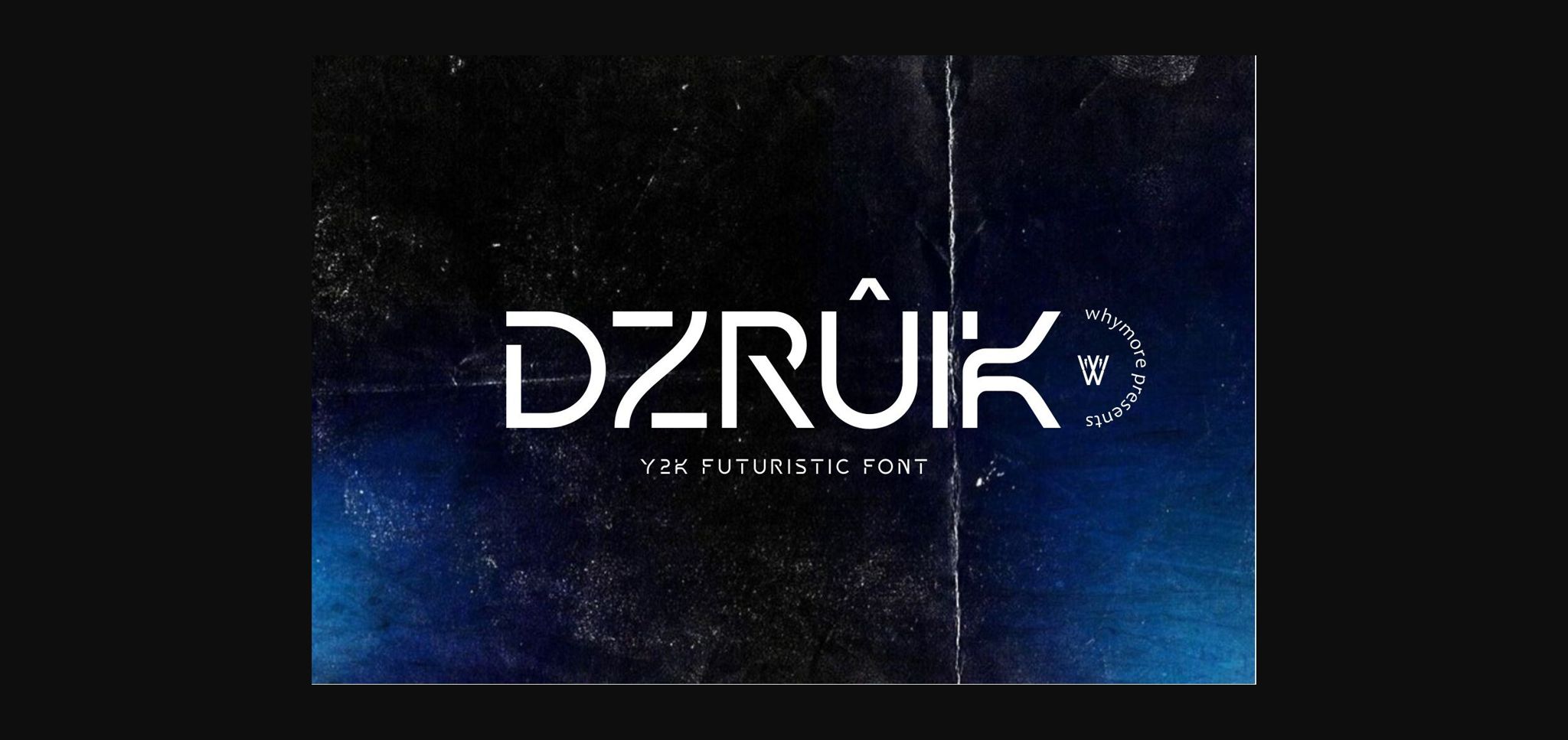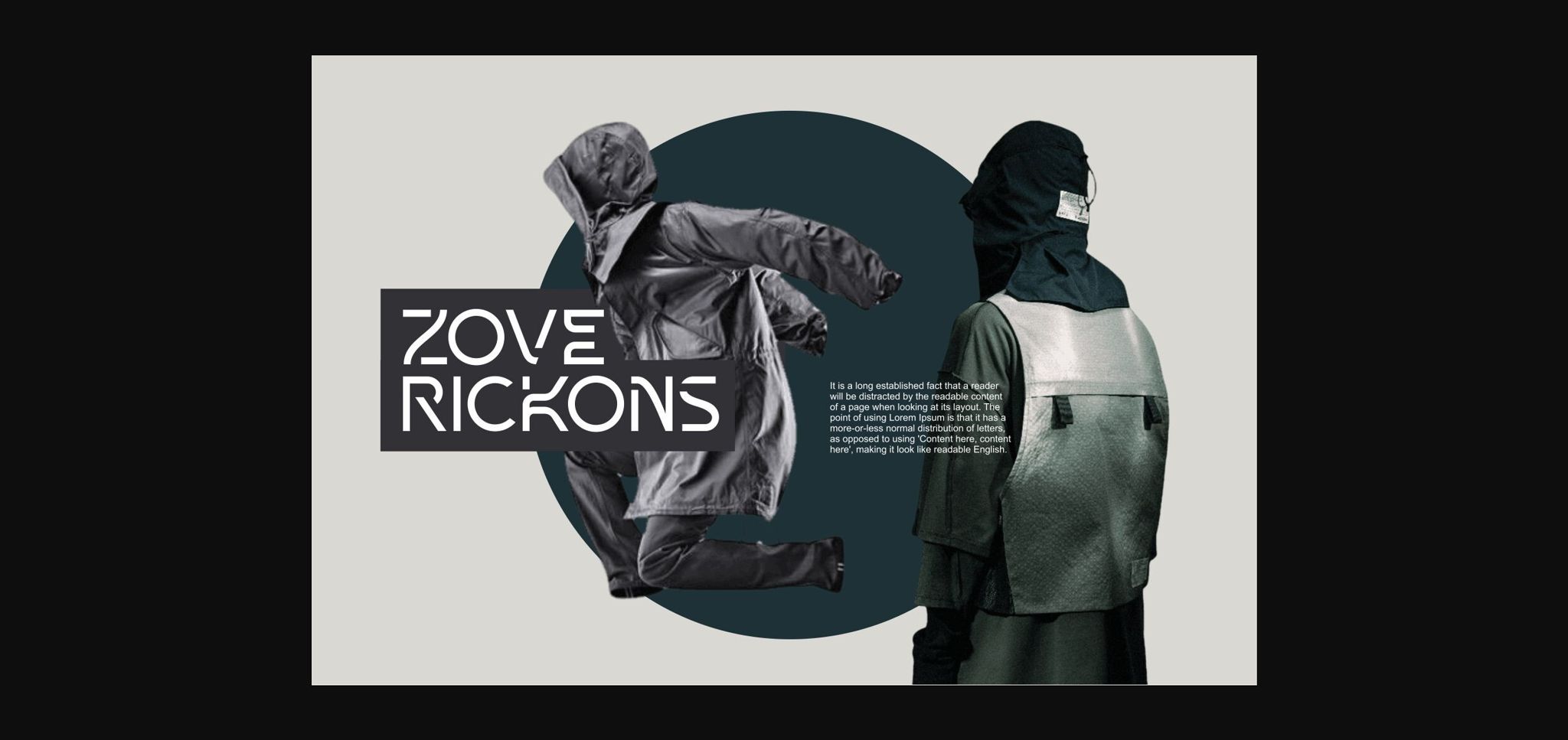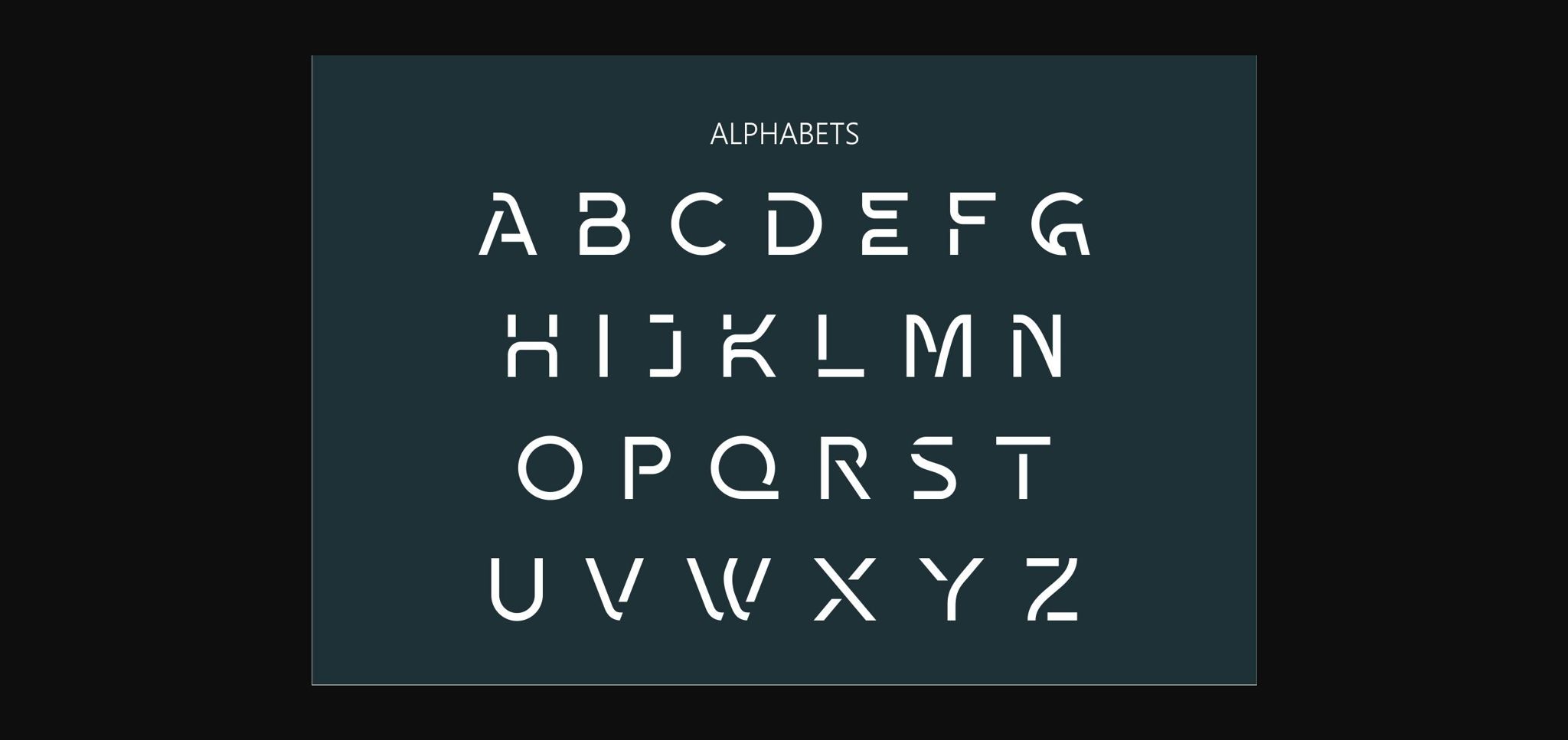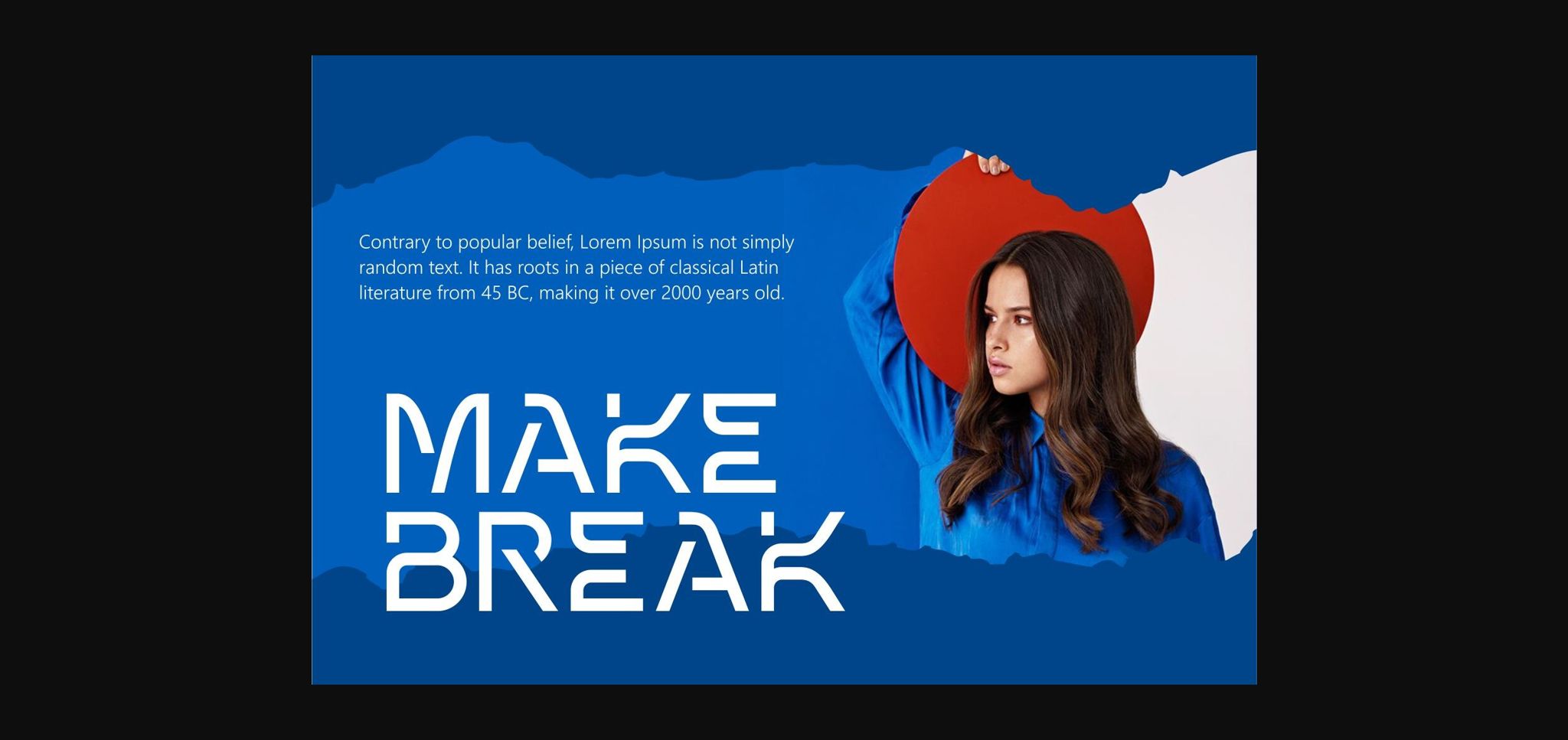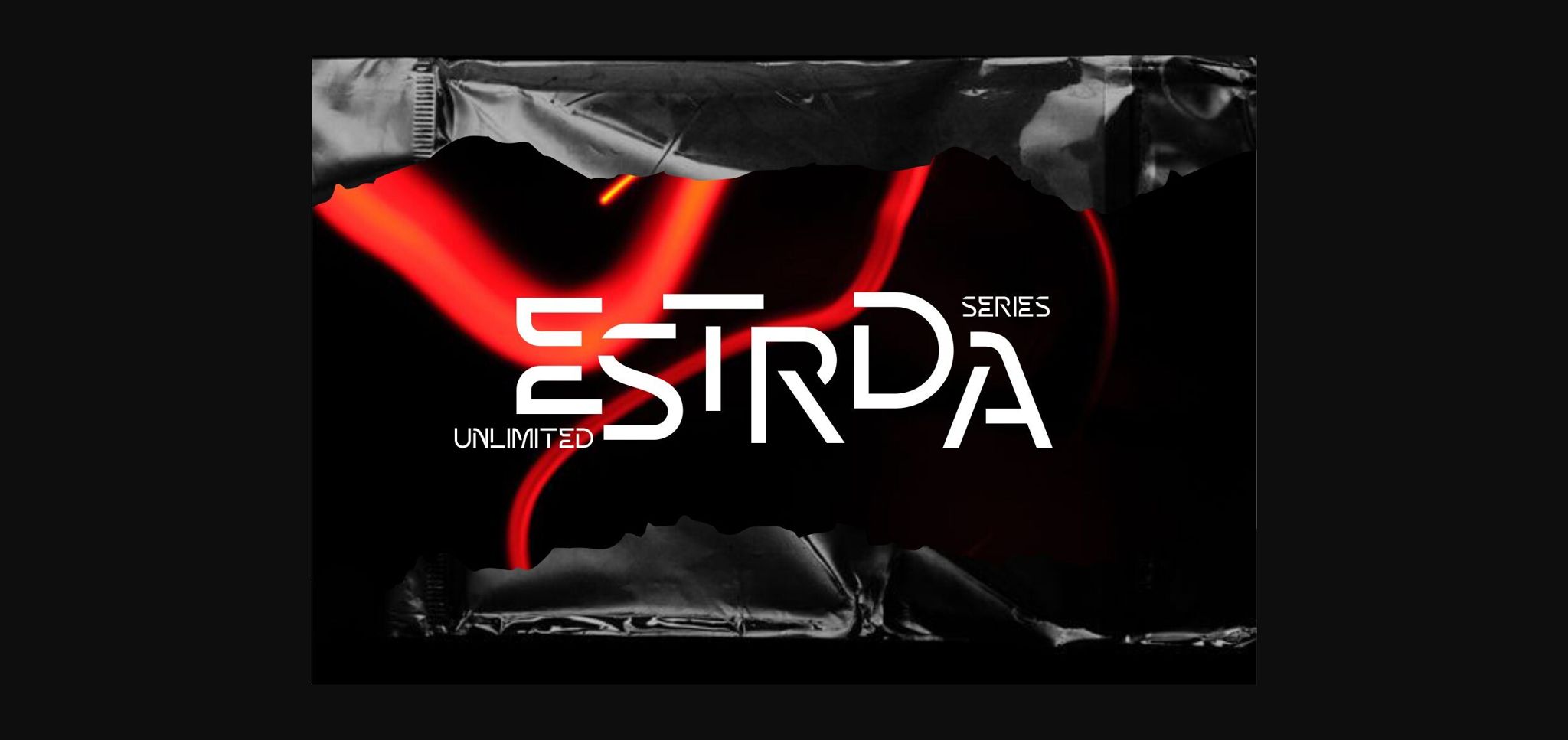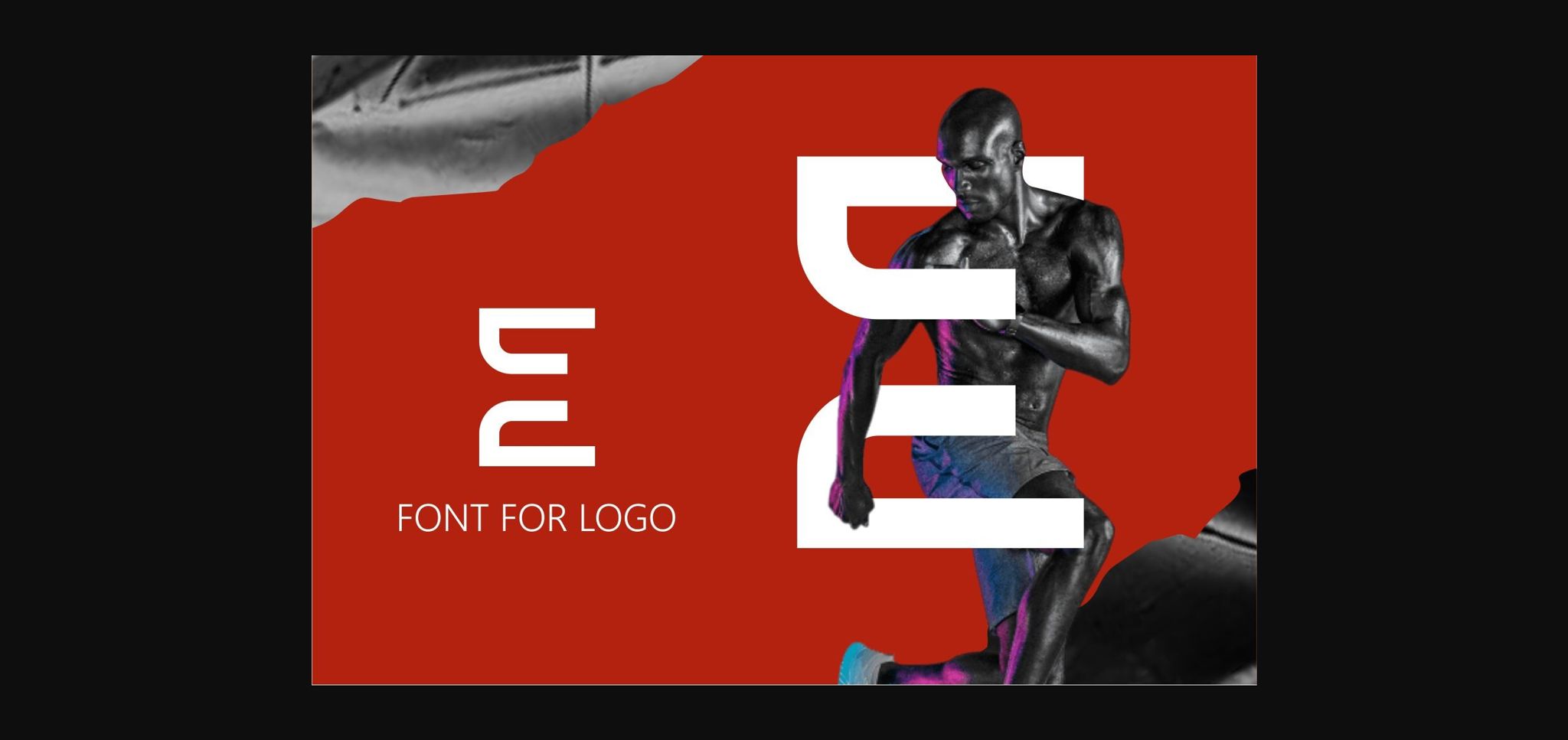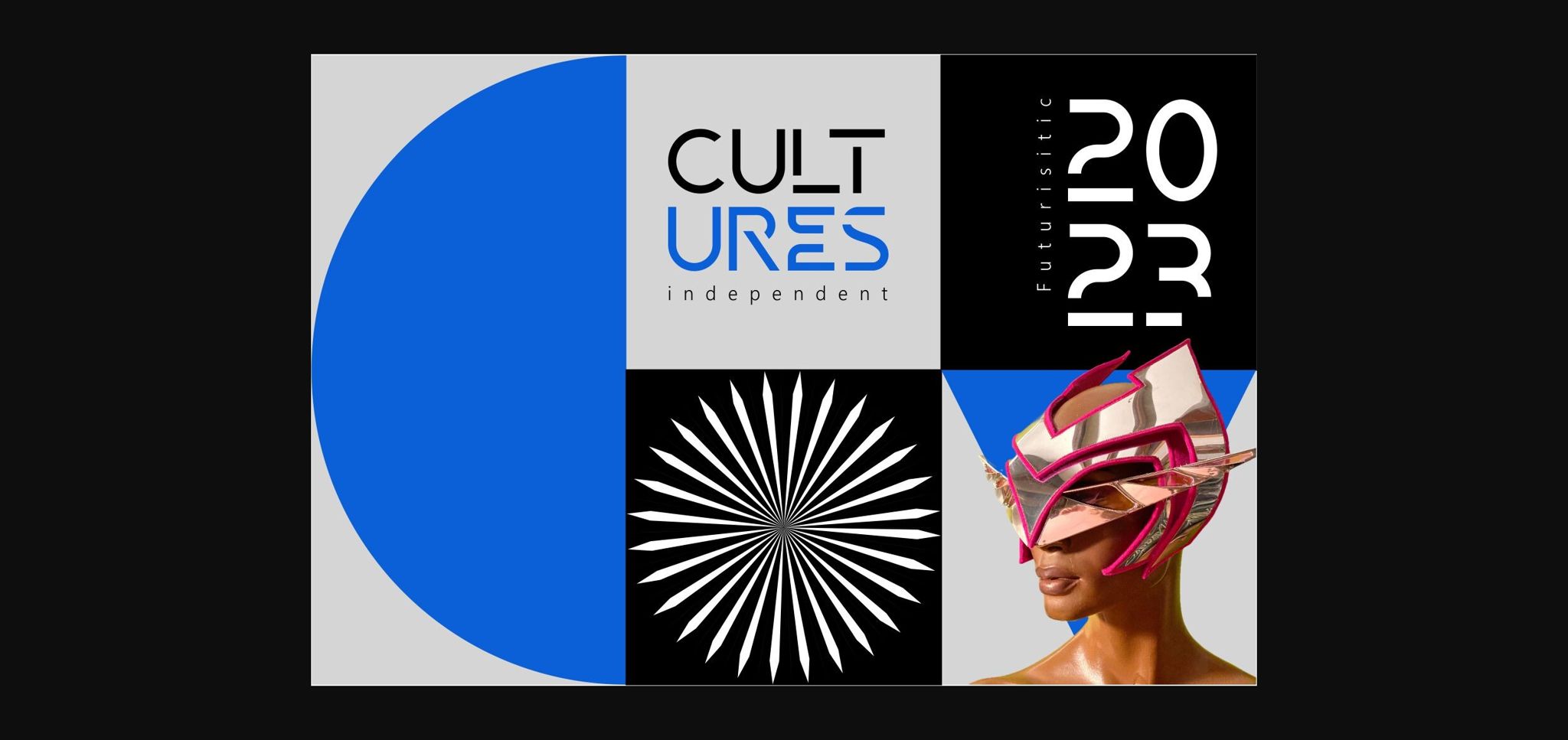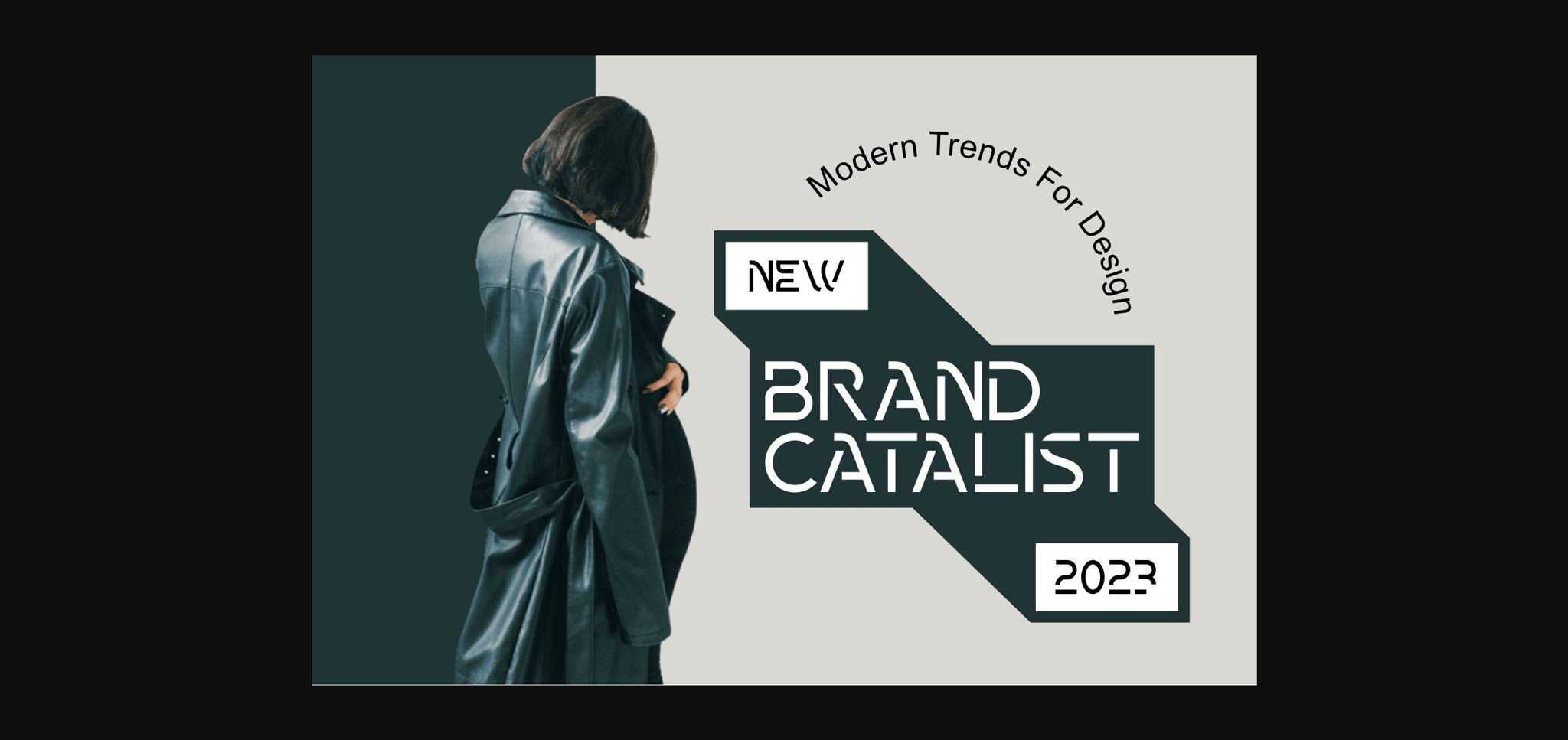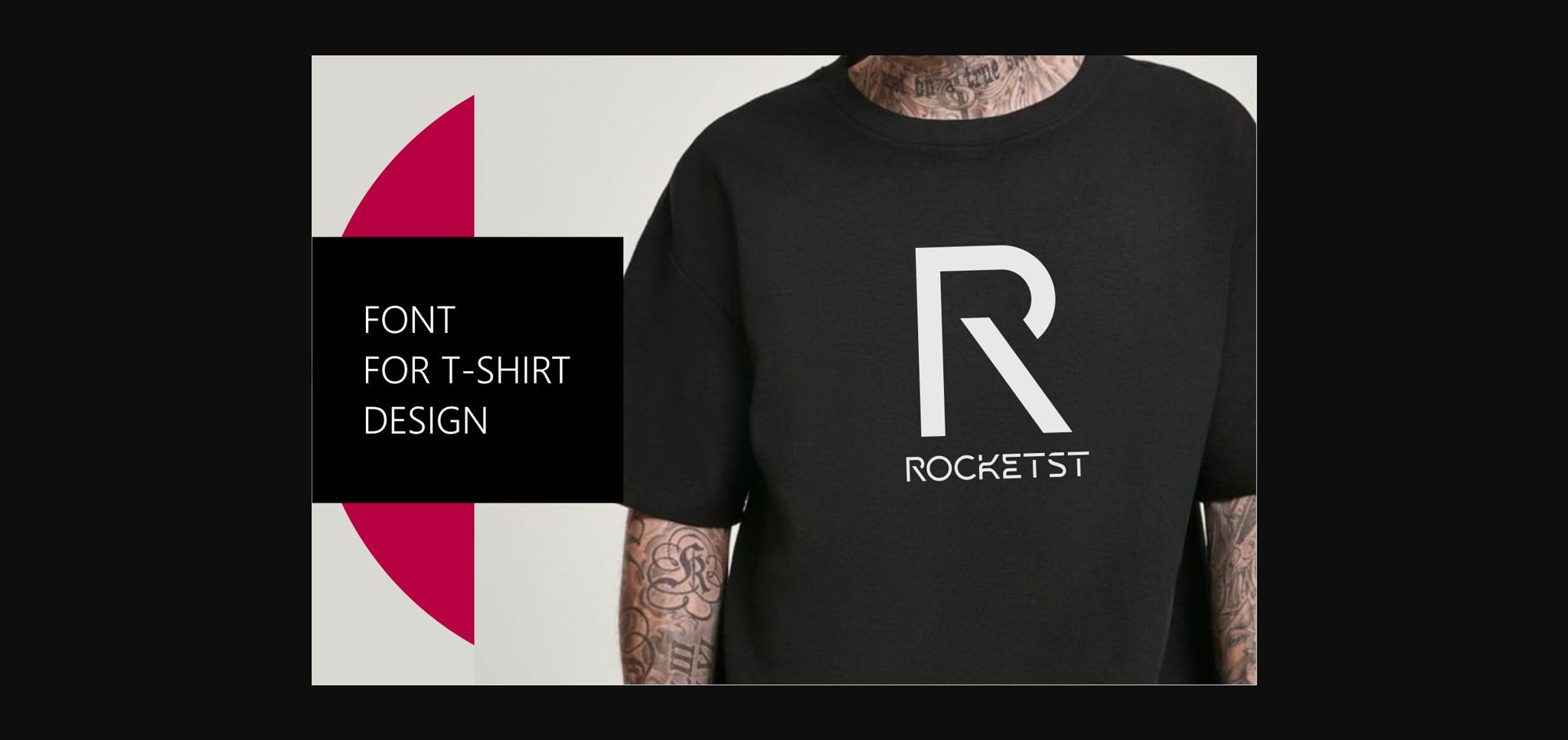
Dzruik Font
About Dzruik Font
Minimalist yet luxurious and classy. Whether used for branding, design templates, calendars, posters, headlines, brochures, promotional tools, or editorial designs, Dzruik was created to meet the visual needs of technological development.
The versatile nature of the Dzruik font makes it suitable for headlines, logos, and lettering. Its legibility ensures clear communication yet invites a sharp eye catch. Dzruik is the perfect choice for those looking for a typeface that embodies the Future and sophistication that will not be limited by time. With a futuristic style but with a Y2k style feel, it can bring you to a different visual work.